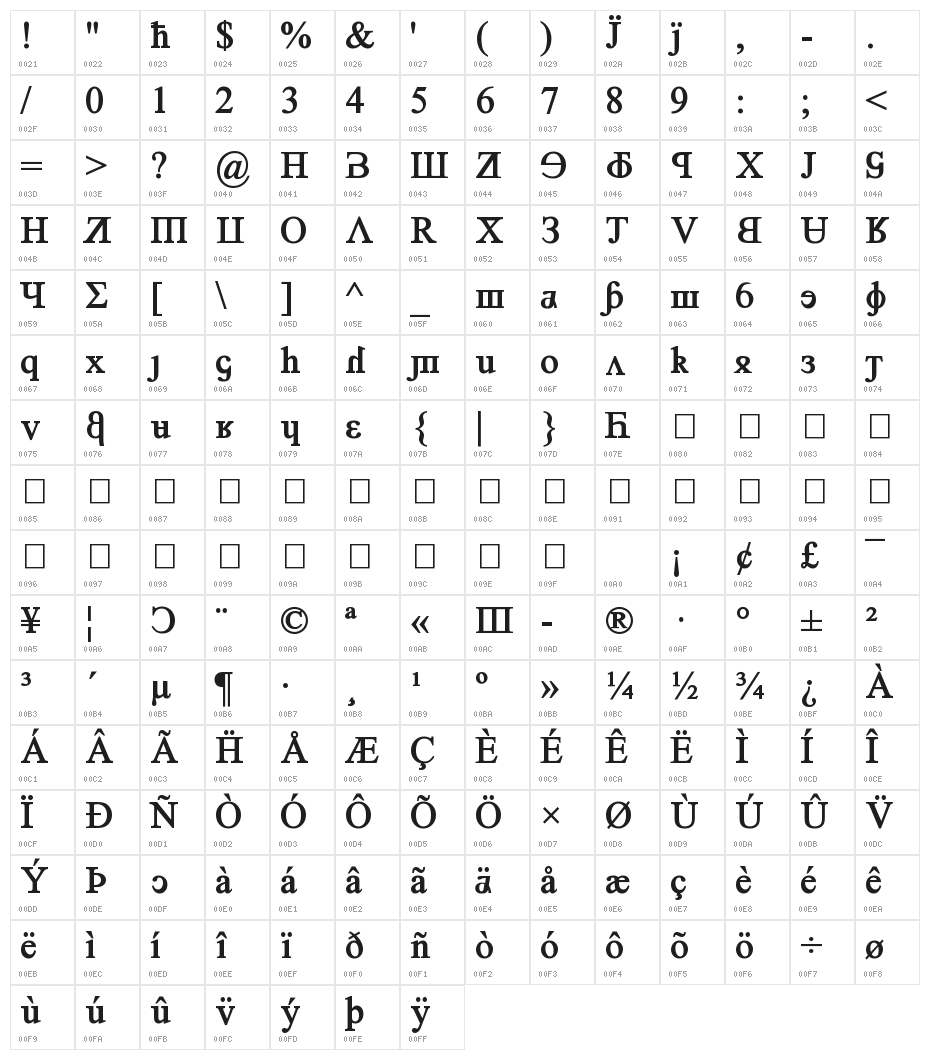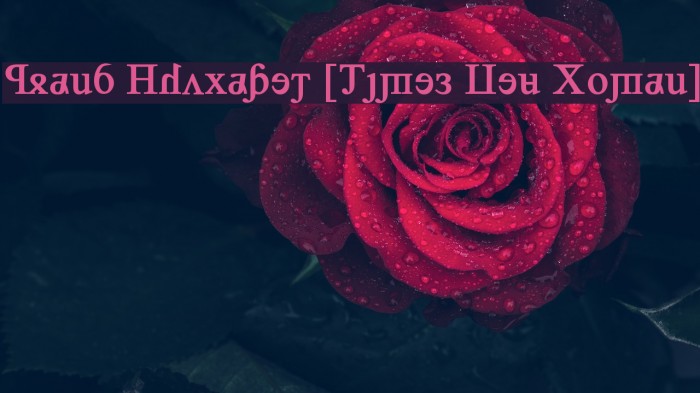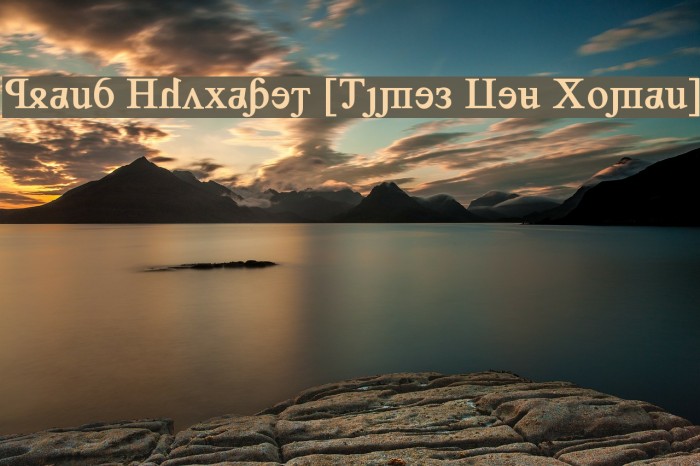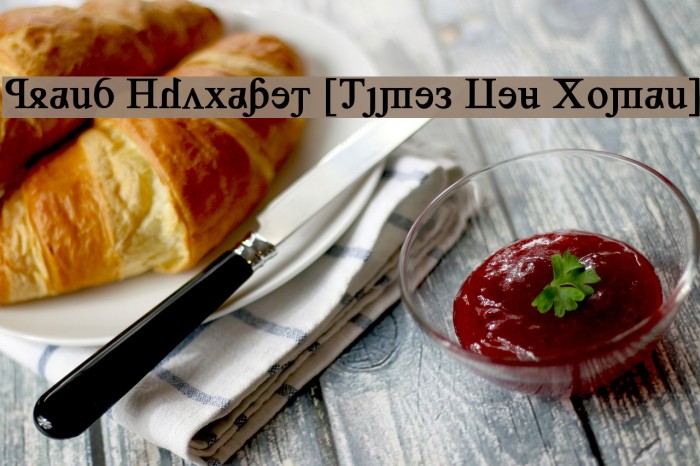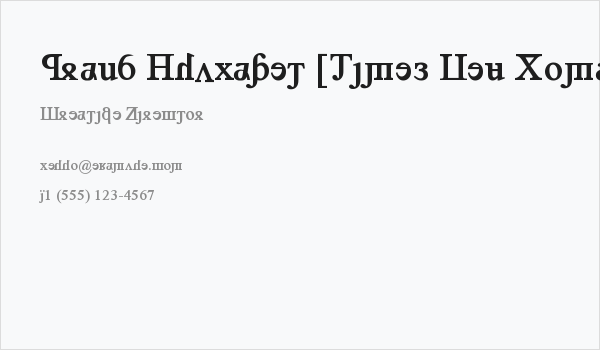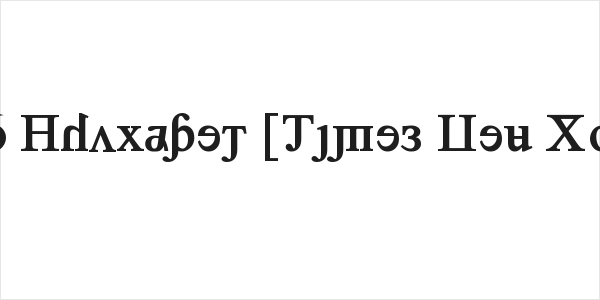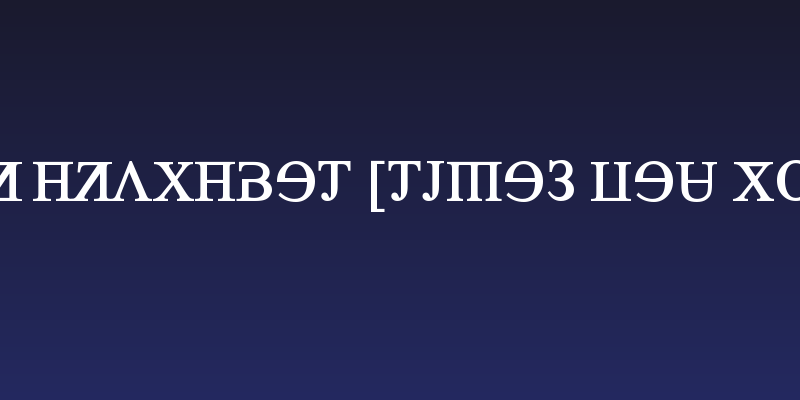
Grand Alphabet [Times New Roman] Font
Grand Alphabet [Times New Roman] Description
This font features a classic serif design with a strong emphasis on readability and elegance. The serifs are pronounced, providing a traditional and formal appearance. The characters are well-proportioned, with a balanced weight that enhances legibility. The uppercase letters exhibit a stately presence, while the lowercase letters maintain a smooth flow. The numerals are clear and distinct, making them suitable for both text and numerical data. Special characters are included, offering versatility for various types of content. Overall, this font exudes a timeless quality, making it ideal for formal documents, literature, and professional settings.
| Use Case | Body text, Headlines, Formal documents |
| Proposed Projects | Ideal for book publishing, academic papers, formal invitations, and corporate branding. |